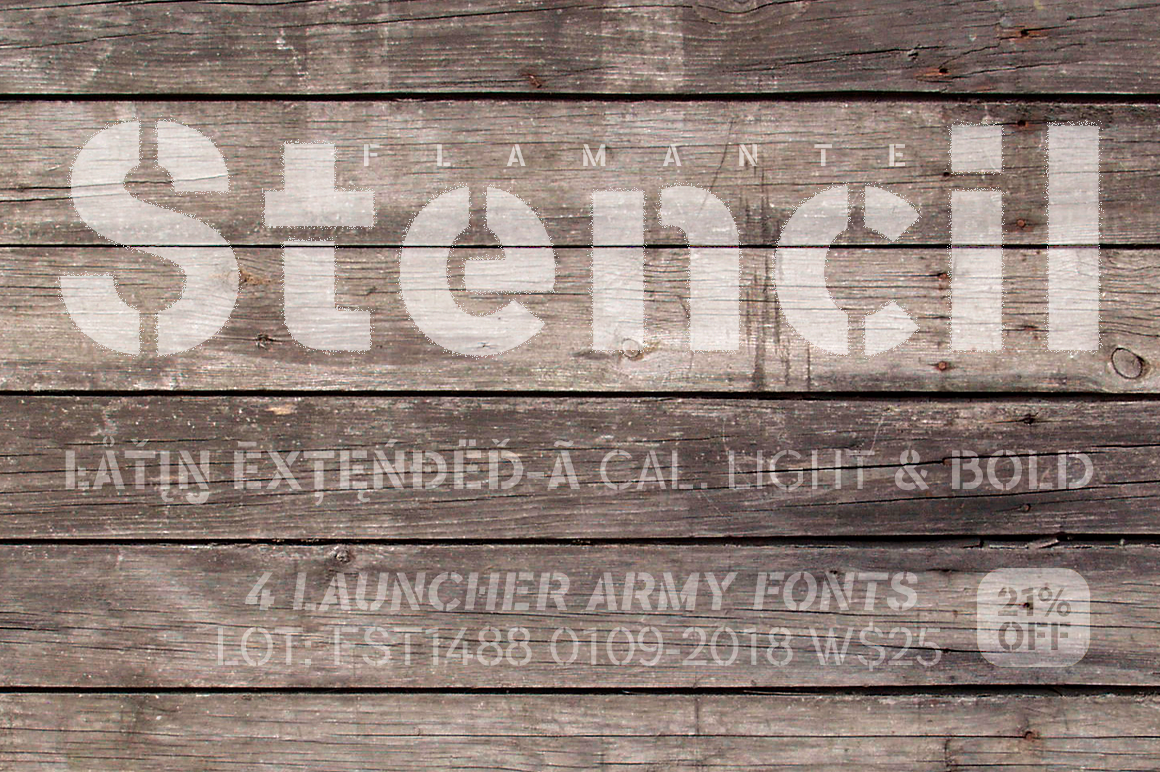
Flamante Stencil -4 fonts-
FLAMANTE STENCIL LIGHT & BOLD + ITALICS.
Flamante Stencil is a family of typographies military style without serifs that are released with four weights: Light, Book, Medium and Bold and their corresponding italic versions.